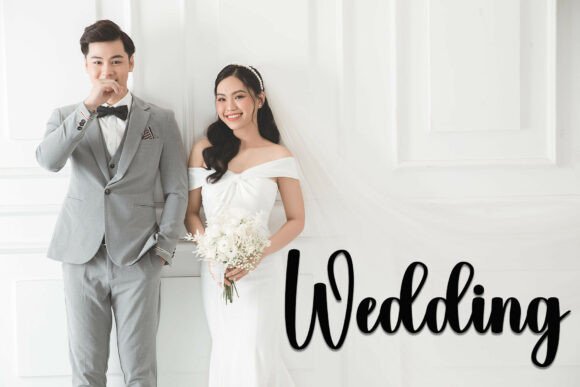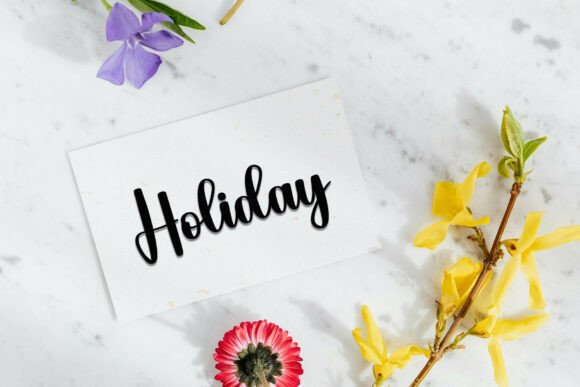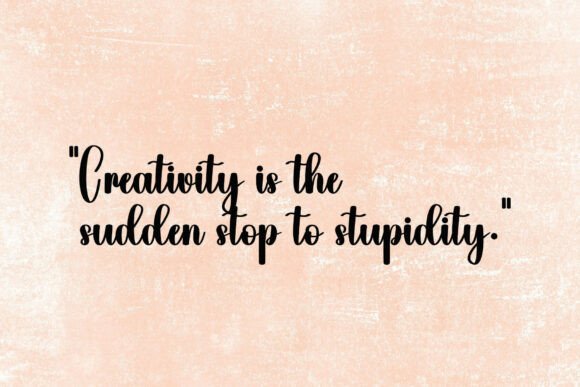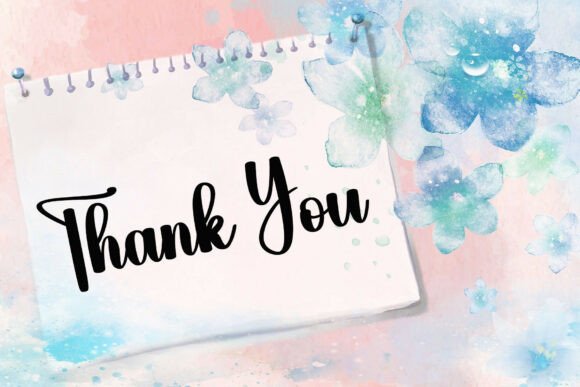
Discover the Charm of December Font: Elevate Your Designs with a Friendly Handwritten Touch
Are you on the hunt for a font that exudes warmth, friendliness, and a dash of casual charm? Look no further than the December Font, a delightful handwritten font that is sure to breathe life into your creative projects. With its incredibly approachable feel, December Font is the perfect choice for designers, crafters, and DIY enthusiasts seeking to add a personal touch to their work.
The Perfect Font for Instagram and Social Media
In the realm of social media, particularly on platforms like Instagram, standing out from the crowd can be a challenge. December Font offers a unique solution, providing a visually appealing and engaging way to communicate with your audience. Its cute and casual vibe makes it an excellent choice for crafting captions, quotes, and stories that resonate with your followers. Whether you’re a blogger, influencer, or small business owner, December Font can help elevate your social media presence and make your content more shareable.
Bringing DIY Projects to Life with December Font
For crafters and DIY enthusiasts, December Font is a treasure trove of creative possibilities. Its calligraphy script style lends itself beautifully to a wide range of projects, from handmade cards and invitations to crafty signage and decorative art. With December Font, you can add a touch of elegance and sophistication to your DIY creations, turning them into true pieces of art that showcase your personality and style.
Key Features of December Font
- Cute and Casual Handwritten Style: December Font boasts a charming, handwritten aesthetic that is both friendly and approachable.
- Incredibly Friendly Feel: The font’s warm and inviting tone makes it perfect for creating content that resonates with your audience.
- Versatile and Adaptable: December Font can be used for a wide range of creative projects, from social media content to DIY crafts and beyond.
- Easy to Read and Understand: Despite its decorative nature, December Font remains clear and legible, ensuring that your message is conveyed effectively.
Tips for Using December Font Effectively
To make the most of December Font, consider the following tips:
- Mix and Match with Other Fonts: Combine December Font with other fonts to create visual interest and add depth to your designs.
- Experiment with Colors and Textures: Play around with different colors and textures to enhance the overall aesthetic of your project.
- Use it for Headings and Titles: December Font is perfect for headings and titles, where its decorative style can make a lasting impression.
In conclusion, December Font is a delightful and versatile font that can elevate your designs and DIY projects to new heights. Its cute and casual handwritten style, combined with its friendly feel, makes it an excellent choice for designers, crafters, and DIY enthusiasts alike. Whether you’re looking to enhance your social media presence or add a personal touch to your creative projects, December Font is sure to inspire and delight.